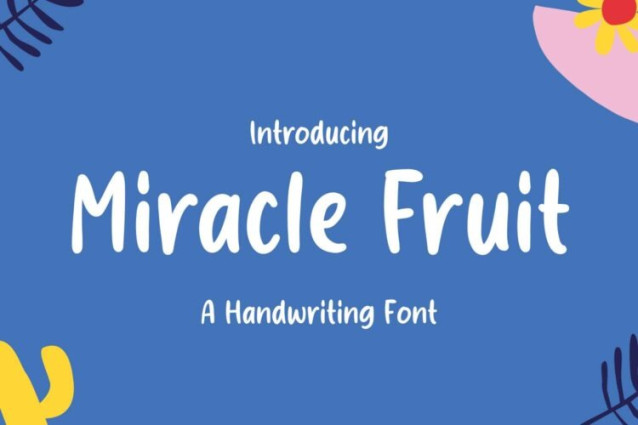
Miracle Fruit Font
Miracle Fruit Font a sweet and friendly handwritten font. Cute and fun, this font is ideal for writing wedding invitations, cards, or any other design that might need a fun touch!